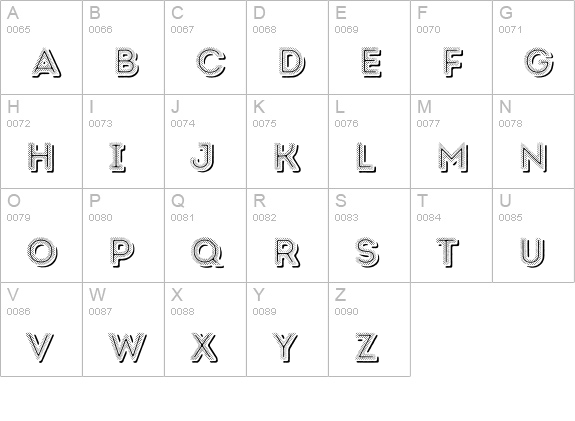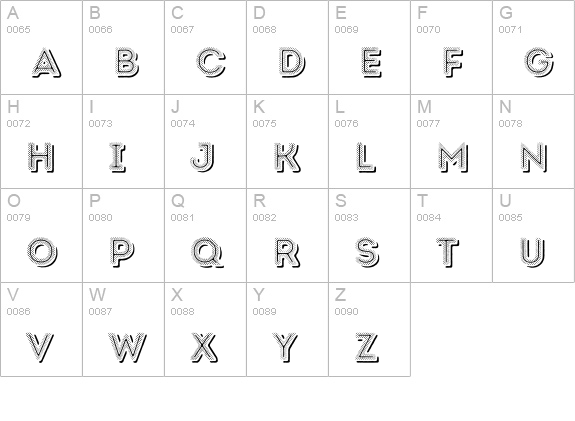
Intro Rust H1 Fill 2 Line Shade Font Details
Intro Rust H1 Fill 2 Line Shade font is a modern and eye-catching typeface that exudes a sense of boldness and sophistication. The intricate design of this font features a unique blend of filled and outlined elements, creating a striking visual impact. With its two-line shading effect, Intro Rust H1 Fill 2 Line Shade font adds depth and dimension to any text or design it is applied to. What makes this font even more appealing is the fact that it is available for free download at FontsMarket.com. This means that you can easily access and use this stylish typeface in your projects without any cost. Whether you are creating a poster, logo, or any other design project, Intro Rust H1 Fill 2 Line Shade font is sure to make a statement with its bold and contemporary aesthetic. Download it today and enhance your designs with this stunning font.